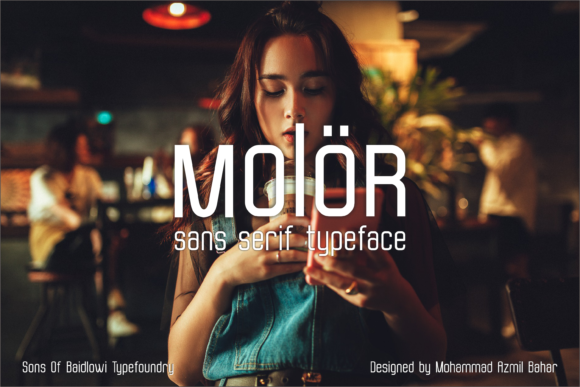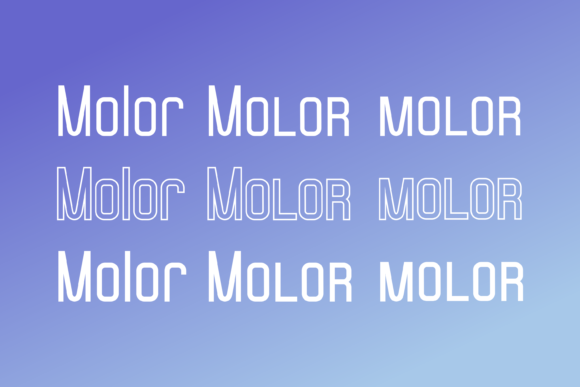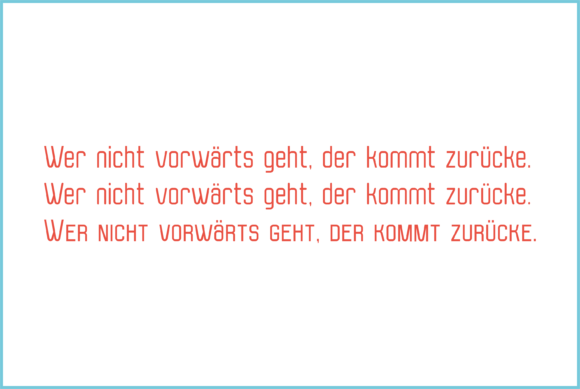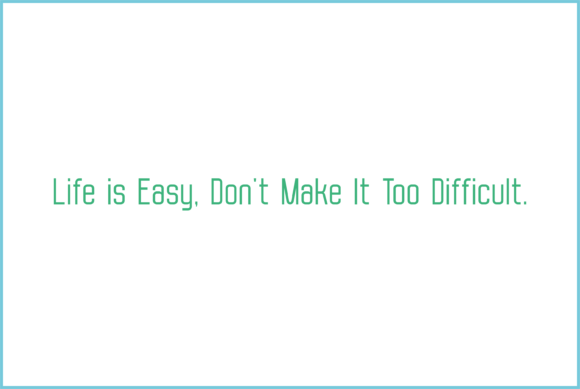
Introduction to Molor Font
You know that feeling when you’re working on a creative project and the right design element can elevate it from good to great? For designers, finding the perfect font can be a game-changer. That’s where Molor Font comes in – a fun and playful sans serif font that’s sure to add some personality to your next design.
With its modern and cool vibe, Molor Font is the perfect addition to any design project. Whether you’re working on a branding project, a website, or a social media campaign, this versatile font is sure to bring a smile to your face and inspire your creativity. And the best part? Molor Font is available for free download, making it an accessible design resource for designers of all levels.
So why is Molor Font so valuable for designers? For one, its high-quality design ensures that it will look great on any platform, from websites to social media posts. Plus, its transparent background makes it easy to use on any design project, from logos to graphics. With Molor Font, the possibilities are endless.
Key Features of Molor Font
- High-quality font with a unique, modern design that sets it apart from other fonts.
- Includes a transparent background, allowing for seamless integration into various design elements.
- Supports a wide range of languages, including Latin, Cyrillic, and Greek alphabets, making it a versatile design tool.
- Unique characteristics include a bold, geometric shape and a sleek, minimalist aesthetic, making it perfect for modern design projects.
Honest Review: Molor Font
I recently had the chance to experiment with Molor Font, and I must say it’s a great addition to any design resource collection. This font is perfect for creative projects that require a touch of elegance and sophistication.
- ✨ The Molor Font is incredibly versatile and can be used for a wide range of design applications, from headings to body text.
- ✨ The design is clean and modern, with a transparent background that makes it easy to use with any background image or color.
- ⚠️ The font may not be suitable for extremely large or small text sizes, as the design can become distorted.
- ⚠️ Some users may find the font a bit too simple or lacking in character.
Overall, I’m impressed with Molor Font and would definitely recommend it as a high-quality design resource for any creative project. With its versatility and modern design, it’s a great addition to any designer’s toolkit.
Tips for Getting the Most Out of Molor Font
For the best results, use Molor Font in conjunction with other design elements to create a visually appealing design. Experiment with different font sizes, colors, and alignments to find the perfect combination for your project.
Molor Font is a popular design resource for a variety of creative projects, including logos, brochures, and presentations. Its high-quality design and transparent background make it easy to use in a variety of design applications.